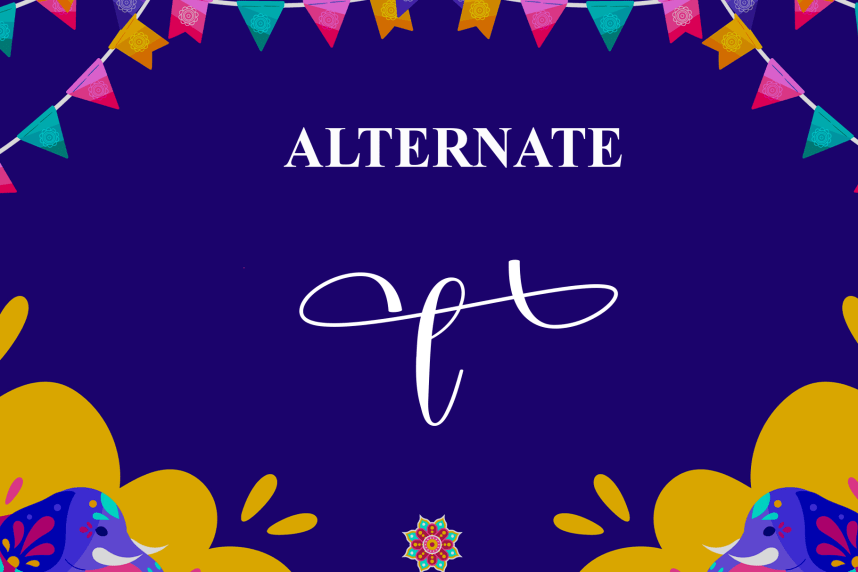
Bestival – Elegant Handwritten Font, special creative products for you, our products will give you an extraordinary experience. the latest style letters are perfect for wall displays, wedding invitations, social media post logos, advertisements, product packaging, product designs, labels, photography, watermarks, invitations, stationery, and any project that requires taste handwriting.